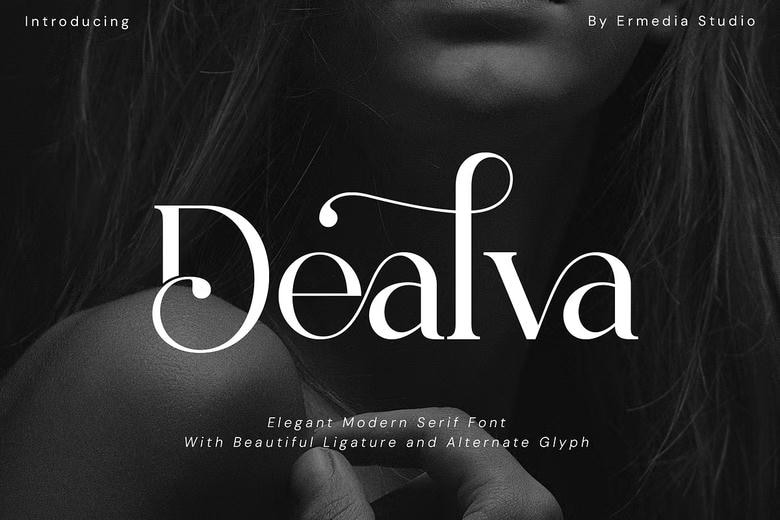
Dealva Font
Dealva is a new release of a Modern Serif Font, designed to be up to date, fashionable and fancy, yet a serif font. It has a unique character. This is ideal when used together with invitation cards, business cards, branding of companies, movies, books, brands, event names, product names and many other designs. Dealva Serif Font: is the new font with the classy and stylish appearance in the serif category. Still, this beautiful and elegant font has all potential becoming an ideal match to any project.
Dealva Serif Font